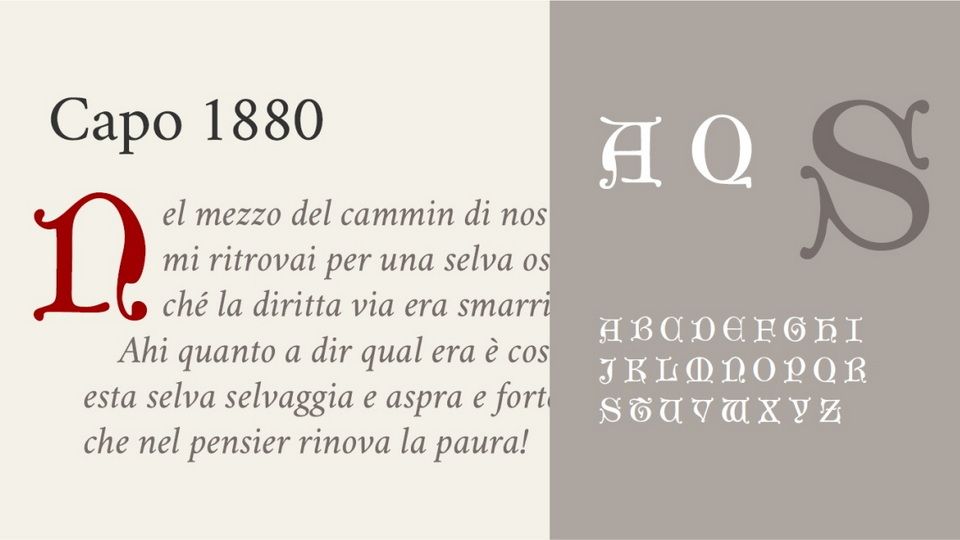
Capo 1880 is a decorative drop cap typeface inspired by the ornate typefaces of the 1880s made by by the Cincinnati Type Foundry. The font showcases the intricate detailing characteristic of the Victorian era, with each letter designed to serve as a stunning focal point in your text.
The drop caps feature elaborate flourishes, bold strokes, and elegant curves, capturing the grandeur and sophistication of 19th-century design. Perfect for book titles, chapter openings, invitations, and any project that demands a touch of historical opulence, Capo 1880 font adds a sense of luxury and refinement to your typography.